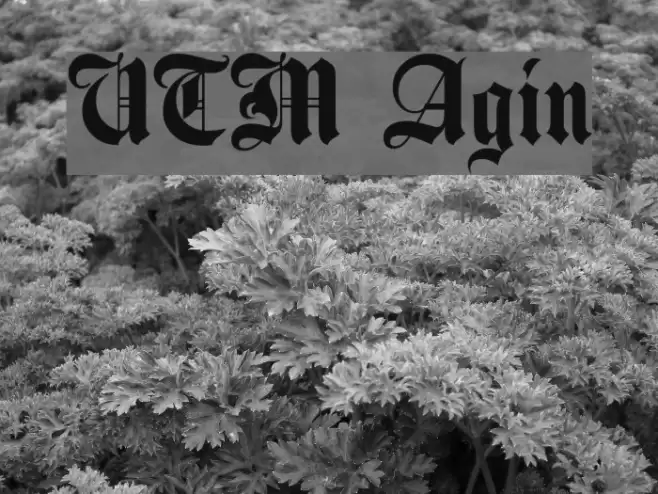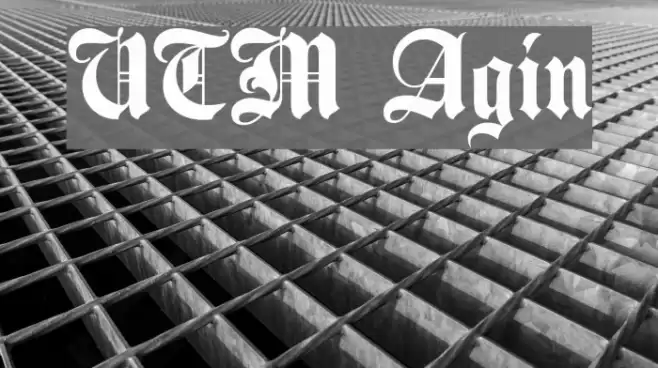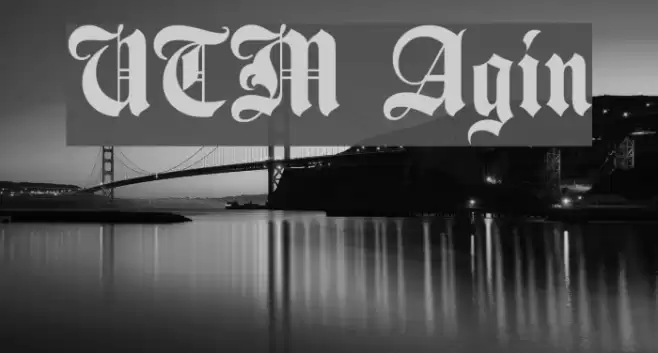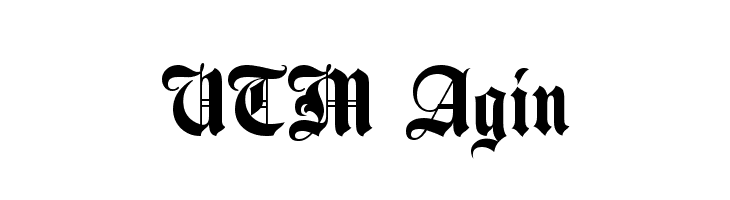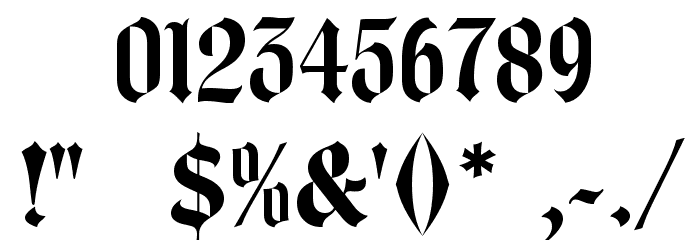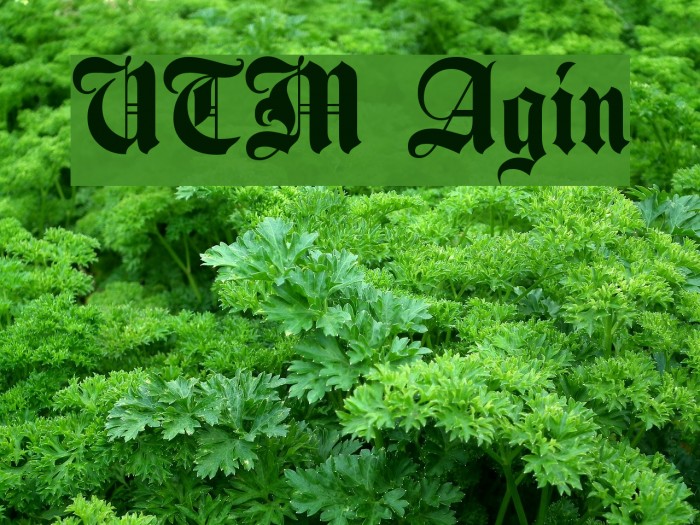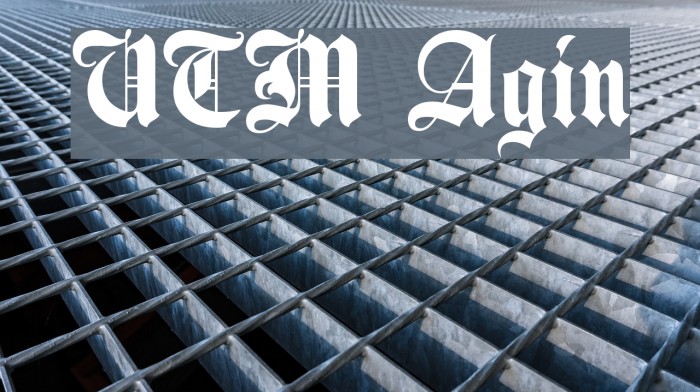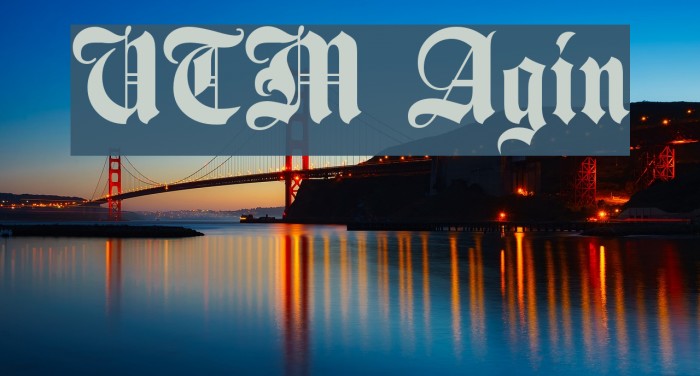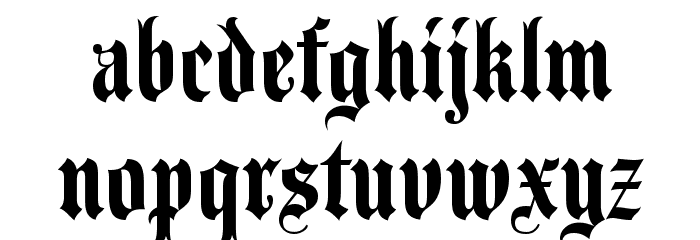
UTM Agin Font
UTM Agin Description
This font embodies a classic blackletter style, characterized by its intricate and ornate design. The letters are bold and dramatic, with sharp angles and elaborate curves that give it a gothic appearance. The uppercase letters are particularly striking, with their tall, narrow forms and decorative flourishes. The lowercase letters maintain the same level of detail, ensuring consistency throughout the typeface. Numbers and special characters are equally stylized, making them suitable for thematic designs. The overall aesthetic is reminiscent of medieval manuscripts, making it ideal for projects that require a historical or traditional touch.
A bold, ornate blackletter font with a gothic, medieval style from Uncategorized fonts.
- Proposed Projects: Ideal for historical documents, themed event invitations, book covers, and branding that requires a traditional or gothic touch.
- Overall Style: Vintage
- Use Case: Logos, Headlines, Decorative text